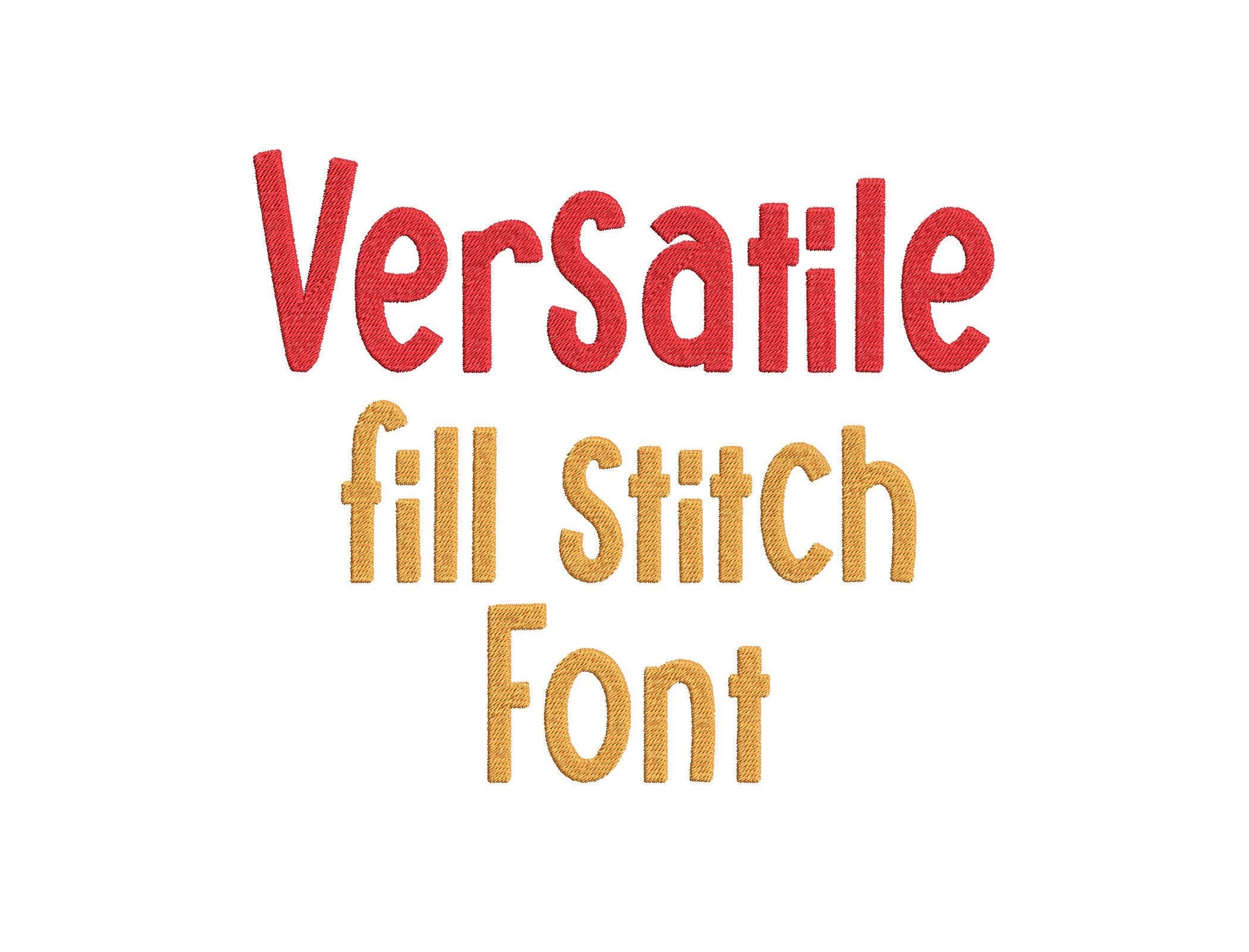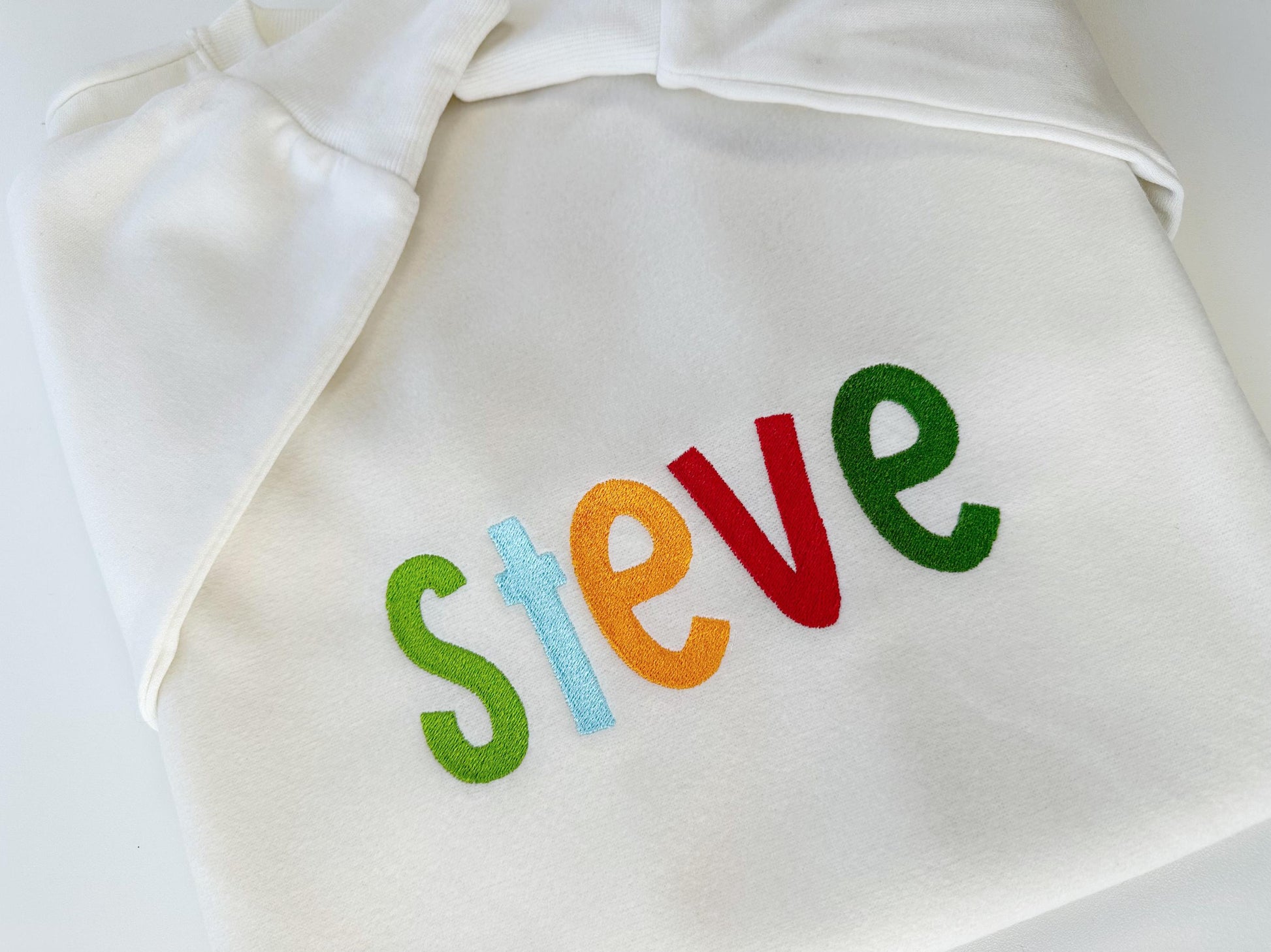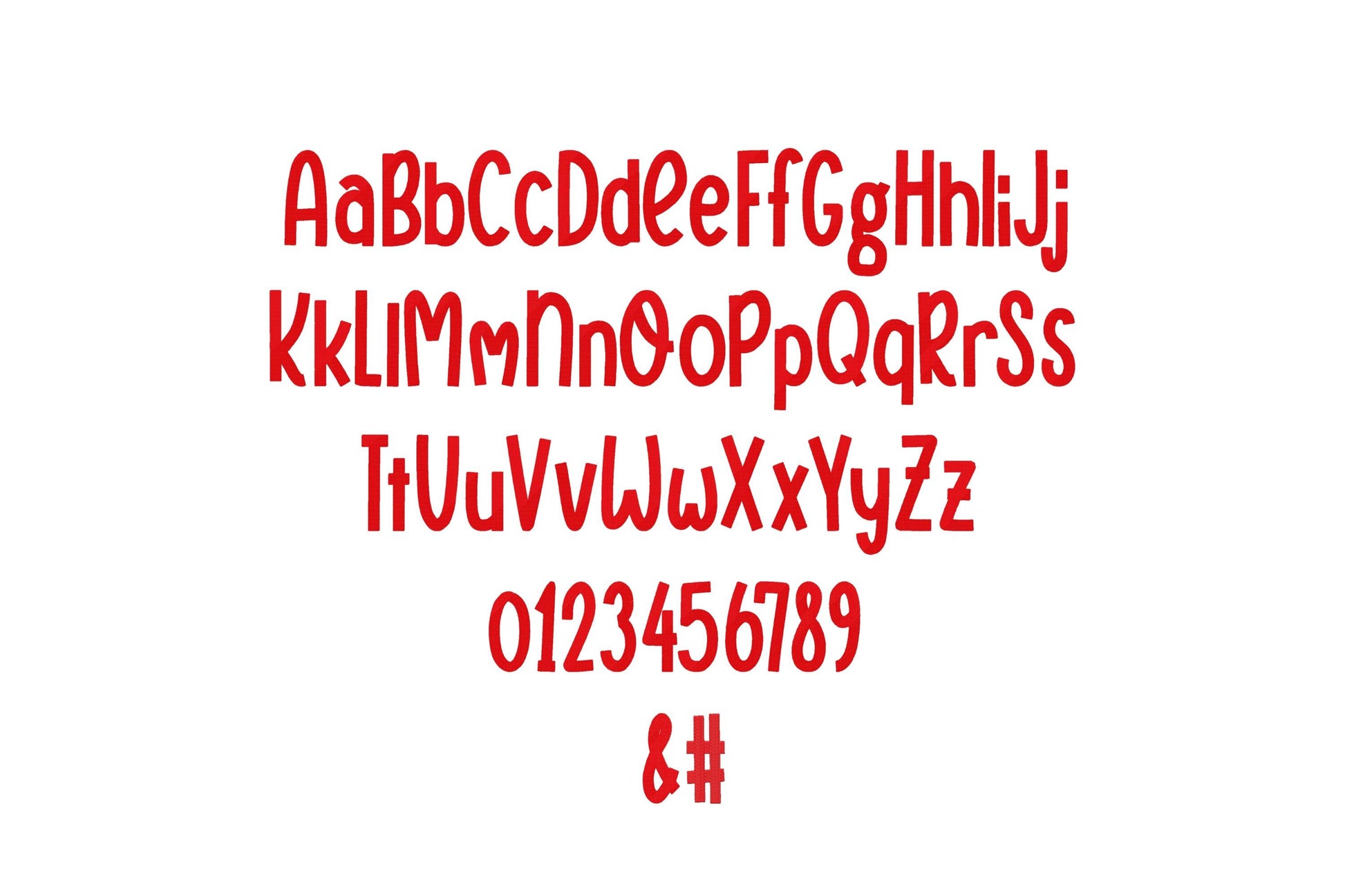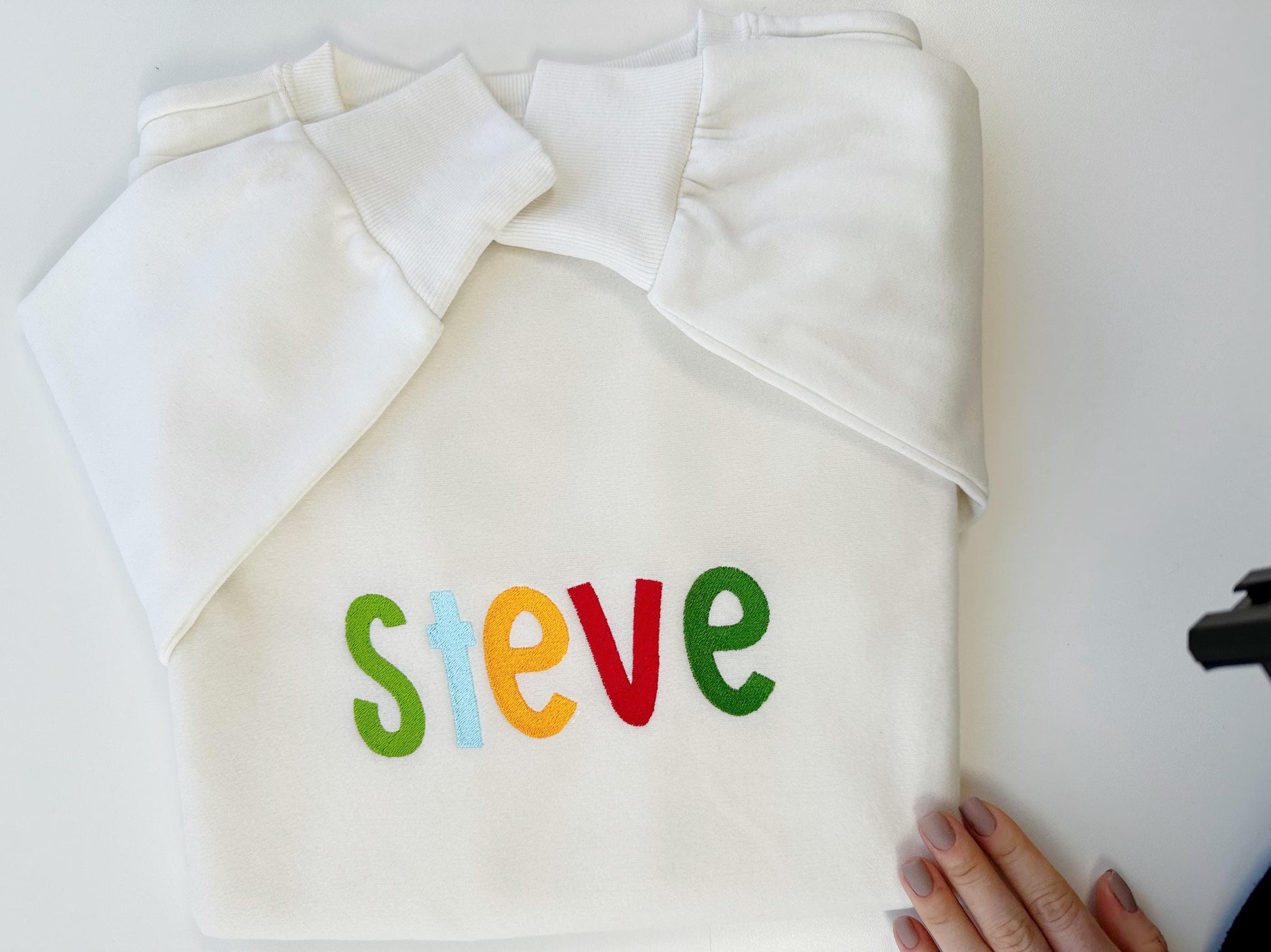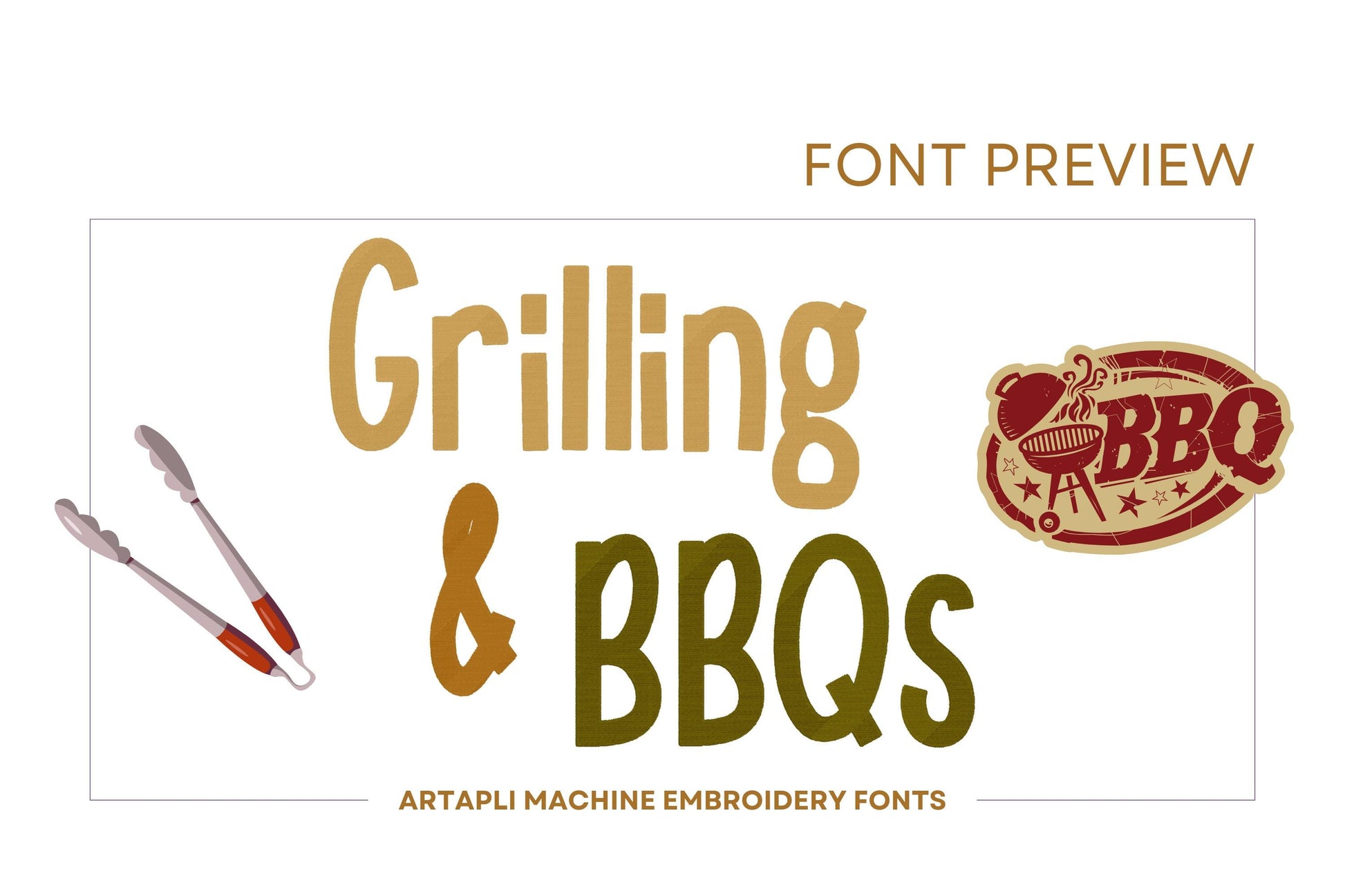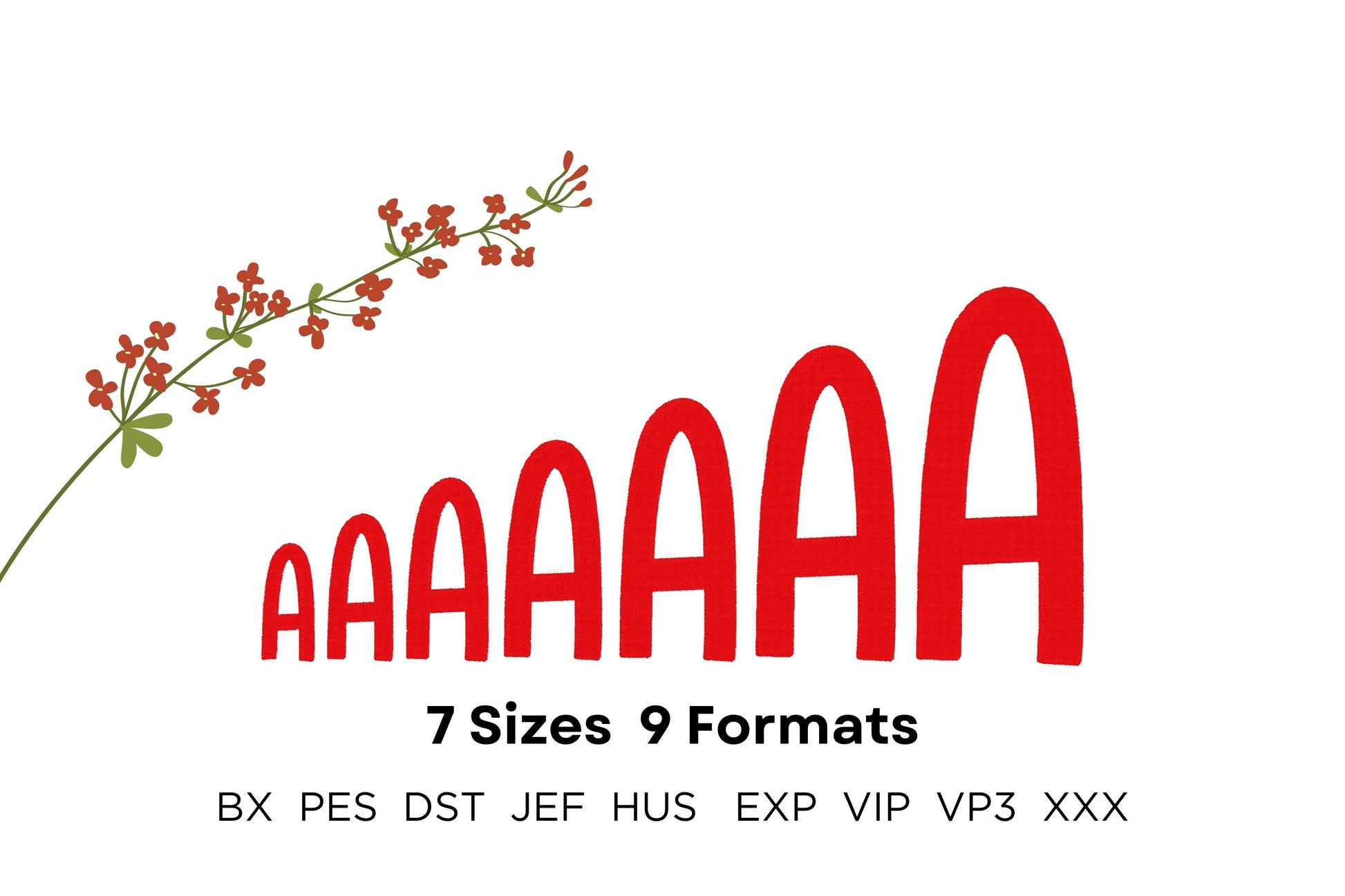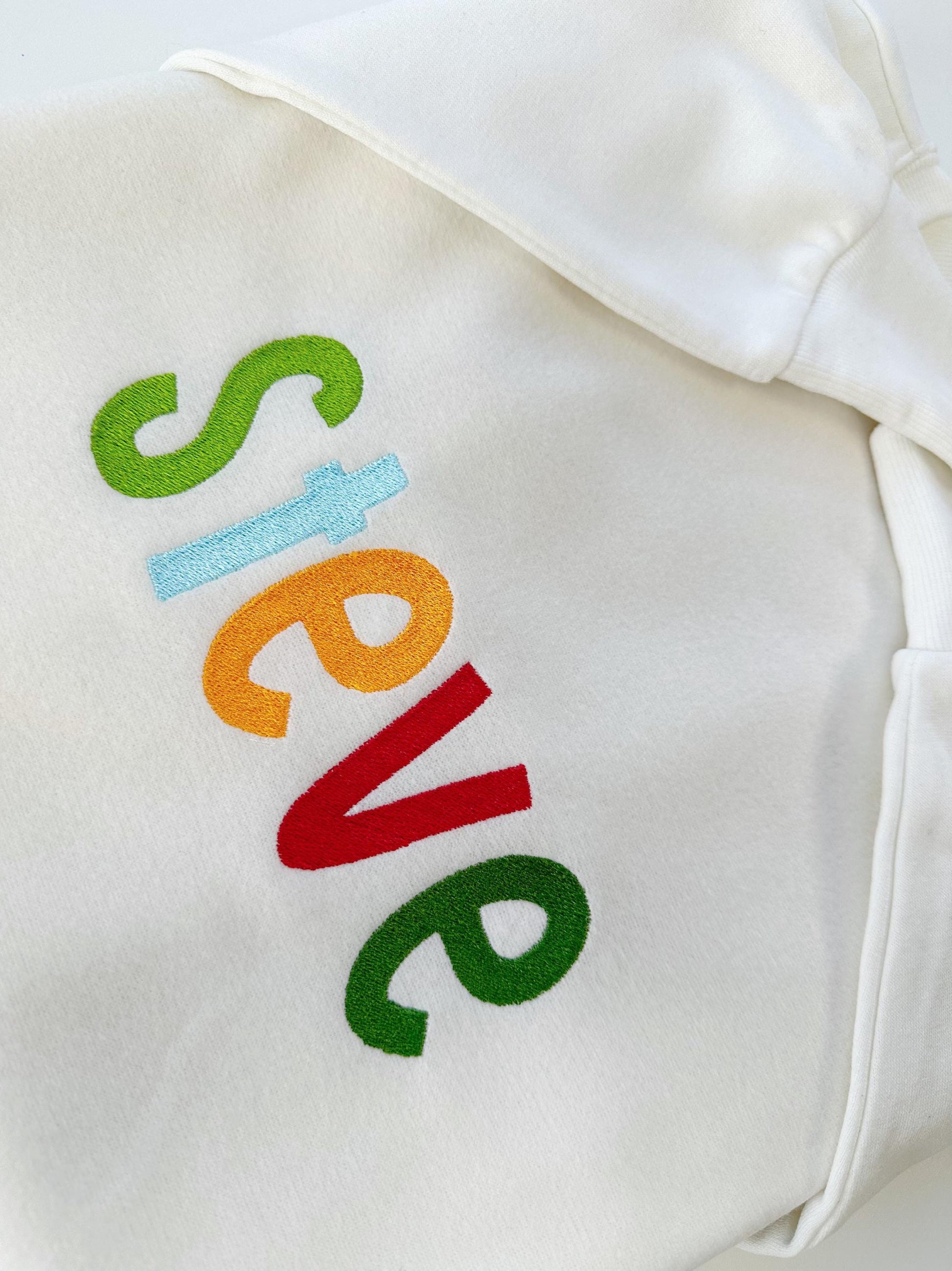
Or click to open the linkA bold, versatile fill stitch font for kids' names, monograms and numbers on shirts, bags and pillows.
Uppercase and lowercase letters, numbers, an ampersand and a number sign in seven sizes: 1.6, 2, 2.7, 3, 3.5, 4.4 and 5.2 inches.